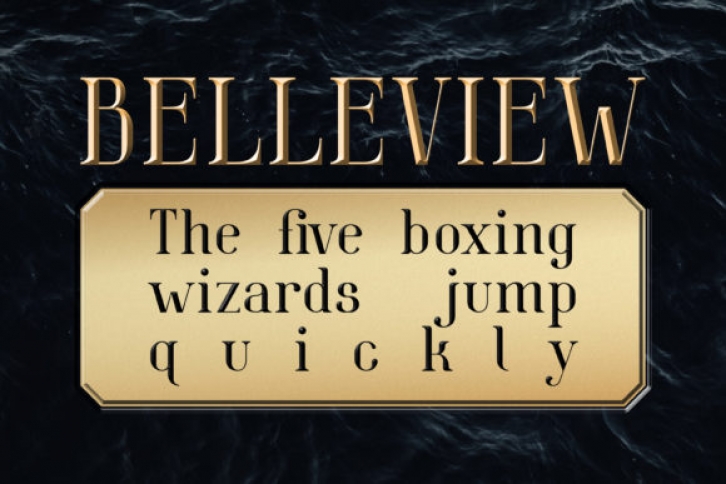
Belleview is a tall and clean serif font. It can be used for various purposes such as logos, wedding invitations, headings, t-shirts, letterhead, signage, labels, news, posters, badges and so much more.
Add this timeless font to each of your creative ideas, and notice how they come alive.